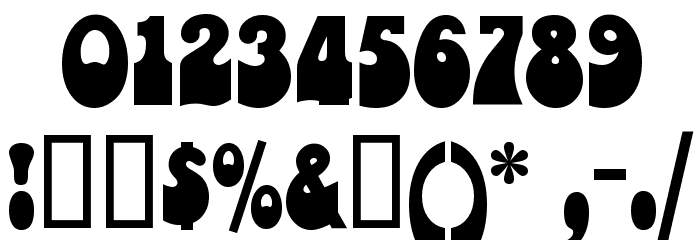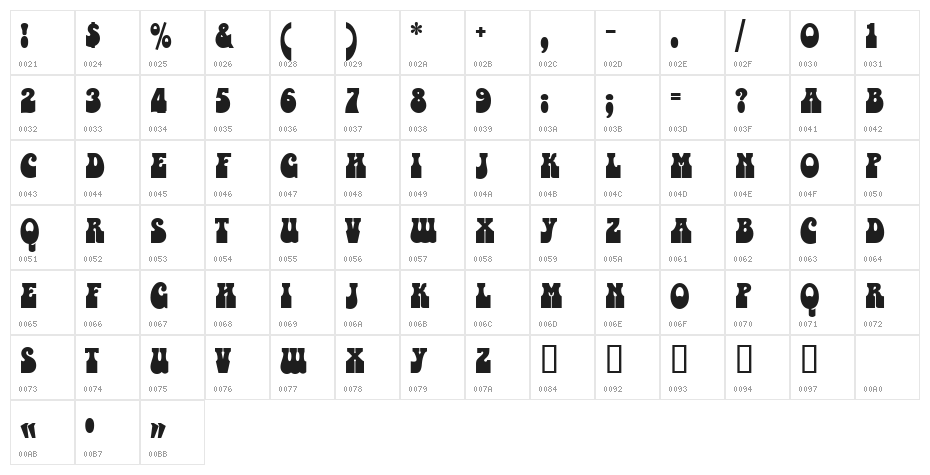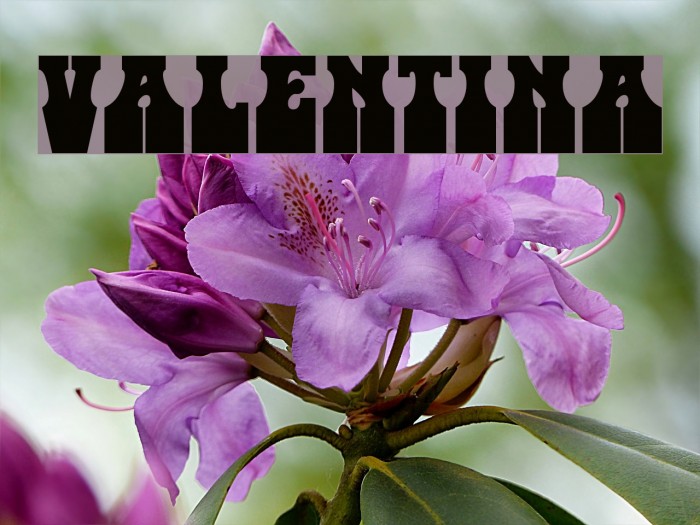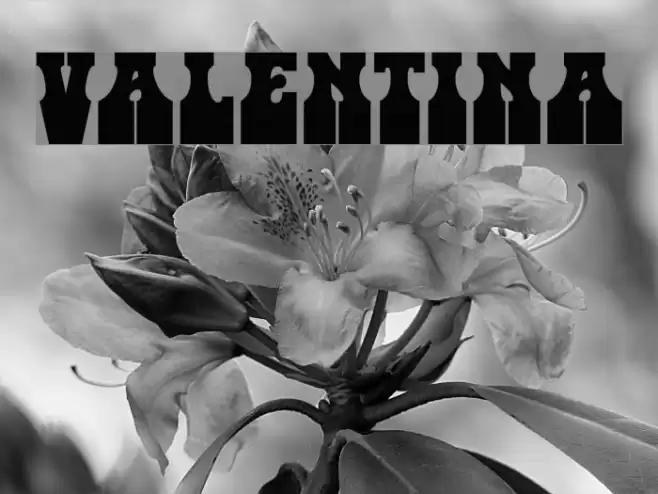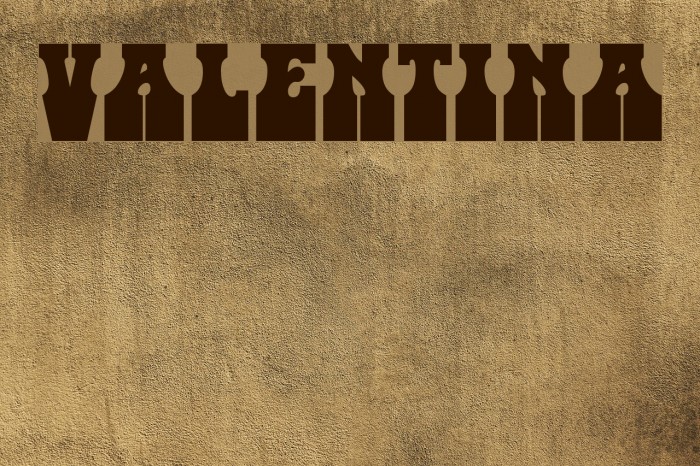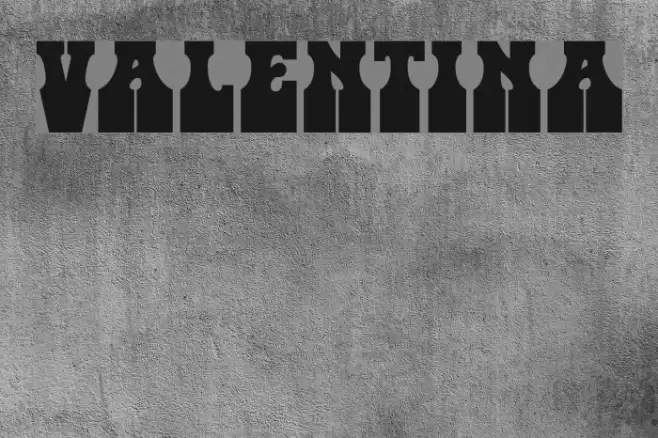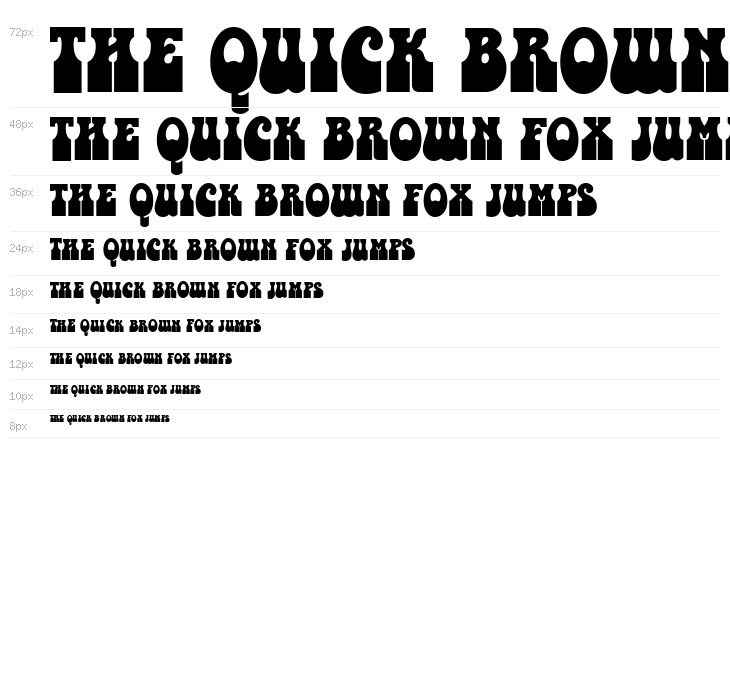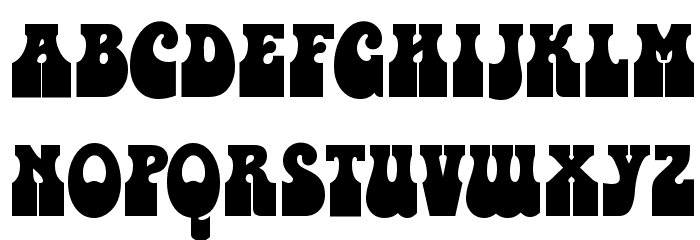
This font is a bold and striking display typeface characterized by its thick, blocky letterforms and high contrast between thick and thin strokes. The design features unique, playful curves and sharp angles that give it a distinctive and eye-catching appearance. The uppercase and lowercase letters maintain a consistent style, with the uppercase being particularly prominent and impactful. The numbers and special characters follow the same bold and decorative style, making them suitable for attention-grabbing headlines and titles. The overall aesthetic is reminiscent of vintage poster fonts, with a modern twist that makes it versatile for various design projects.
Overall StyleVintage
Proposed ProjectsIdeal for posters, branding, headlines, and any project requiring a strong visual impact.